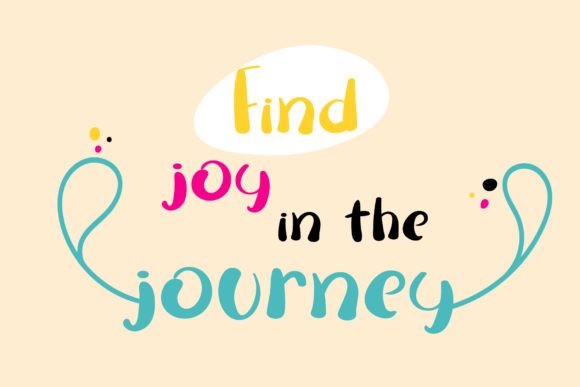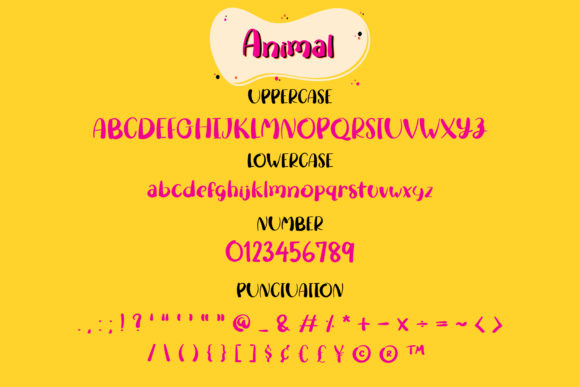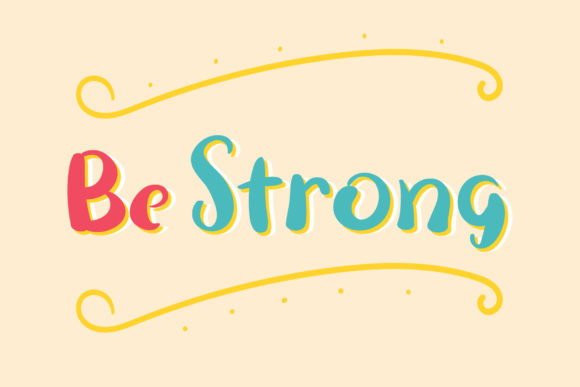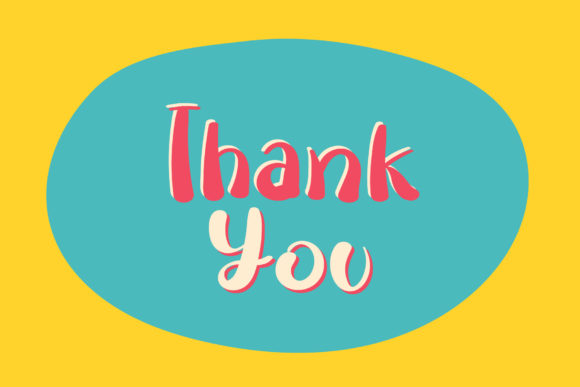
Introducing Animal Font: The Cute and Casual Handwritten Font for Creative Projects
Are you a designer, crafter, or DIY enthusiast looking for a font that can add a touch of friendliness and playfulness to your creative projects? Look no further than Animal Font, a cute and casual handwritten font that is sure to turn any idea into a true piece of art. In this article, we’ll take a closer look at Animal Font, its features, and how you can use it to elevate your designs and craft projects.
What is Animal Font?
Animal Font is a handwritten font designed with a focus on friendliness and approachability. Its casual and playful style makes it perfect for a wide range of creative projects, from social media graphics and Instagram posts to calligraphy scripts and DIY crafts. The font’s incredibly friendly feel is sure to capture the attention of your audience and leave a lasting impression.
Key Features of Animal Font
• Cute and Casual Style: Animal Font has a unique and adorable style that is sure to add a touch of playfulness to your designs.
• Handwritten Feel: The font’s handwritten feel gives it a personal and authentic touch, making it perfect for creative projects that require a human touch.
• Friendliness: Animal Font is designed to be incredibly friendly, making it perfect for projects that require a approachable and welcoming tone.
• Versatility: The font is versatile and can be used for a wide range of creative projects, from social media graphics to calligraphy scripts.
Using Animal Font for Instagram and Social Media Graphics
In today’s digital age, social media platforms like Instagram have become essential channels for designers, crafters, and DIY enthusiasts to showcase their work. Animal Font is perfect for creating eye-catching social media graphics that are sure to capture the attention of your audience. Its friendly and approachable style makes it ideal for:
• Instagram Posts: Use Animal Font to create visually appealing Instagram posts that showcase your designs, crafts, or DIY projects.
• Social Media Graphics: Create social media graphics, such as Facebook posts, Twitter headers, and Pinterest pins, that incorporate Animal Font and add a touch of friendliness to your brand.
Using Animal Font for Calligraphy Scripts and DIY Projects
Animal Font is not just limited to digital projects; it’s also perfect for calligraphy scripts and DIY projects. Its handwritten feel and friendly style make it ideal for:
• Calligraphy Scripts: Use Animal Font to create beautiful calligraphy scripts for your DIY projects, such as handmade cards, gift tags, and posters.
• DIY Crafts: Add a touch of personality to your DIY crafts, such as scrapbooking, journaling, and paper crafting, with Animal Font.
Tips for Using Animal Font Effectively
To get the most out of Animal Font, here are some tips to keep in mind:
• Experiment with Colors: Animal Font looks great in a variety of colors, so don’t be afraid to experiment and find the perfect color scheme for your project.
• Mix and Match Fonts: Combine Animal Font with other fonts to create a unique and visually appealing design.
• Pay Attention to Spacing: Make sure to adjust the spacing between letters and words to ensure that your text is easy to read and visually appealing.
Animal Font is a versatile and adorable handwritten font that is perfect for designers, crafters, and DIY enthusiasts looking to add a touch of friendliness and playfulness to their creative projects. With its casual and approachable style, Animal Font is sure to turn any idea into a true piece of art. Whether you’re looking for fonts for Instagram or calligraphy scripts for your DIY projects, Animal Font is an excellent choice.